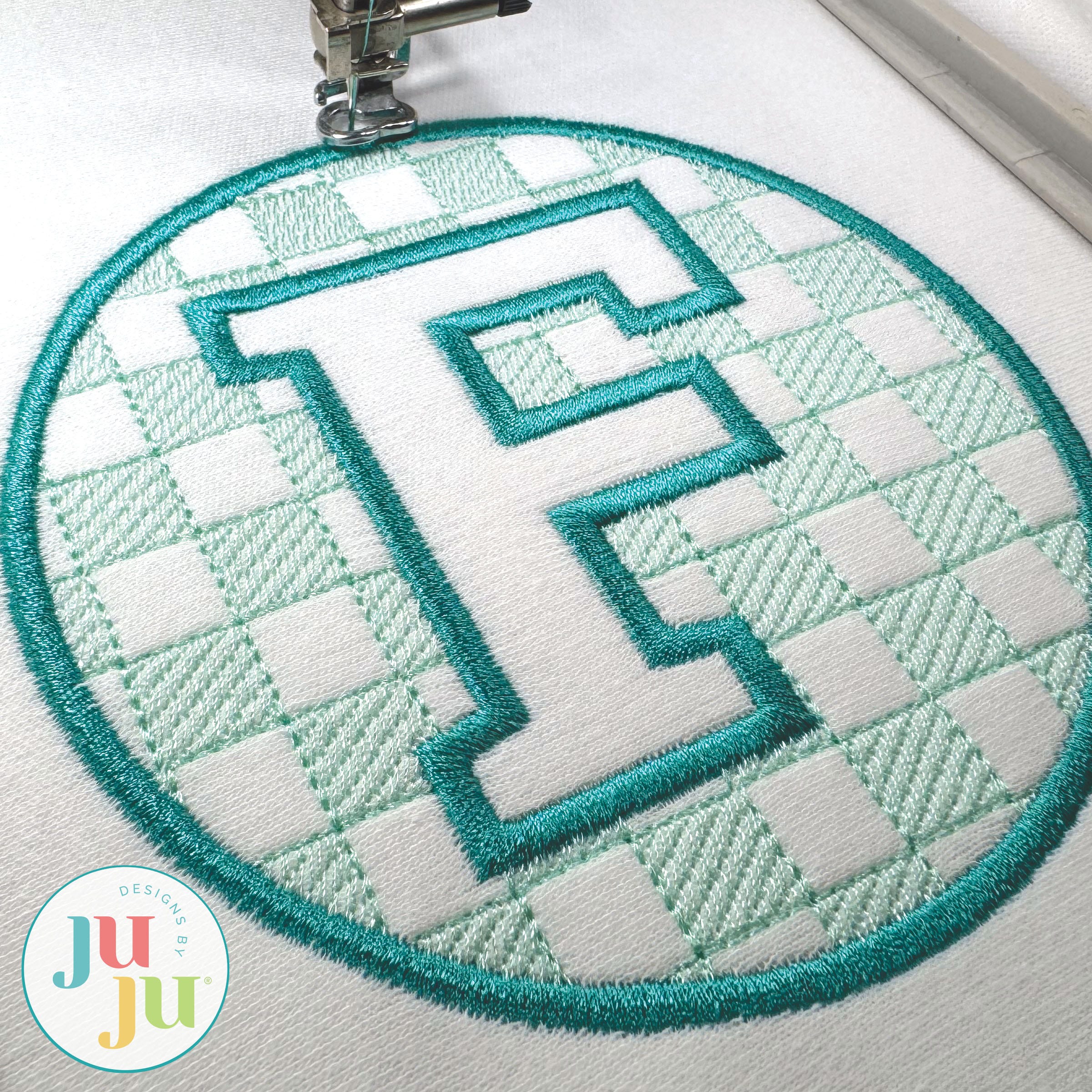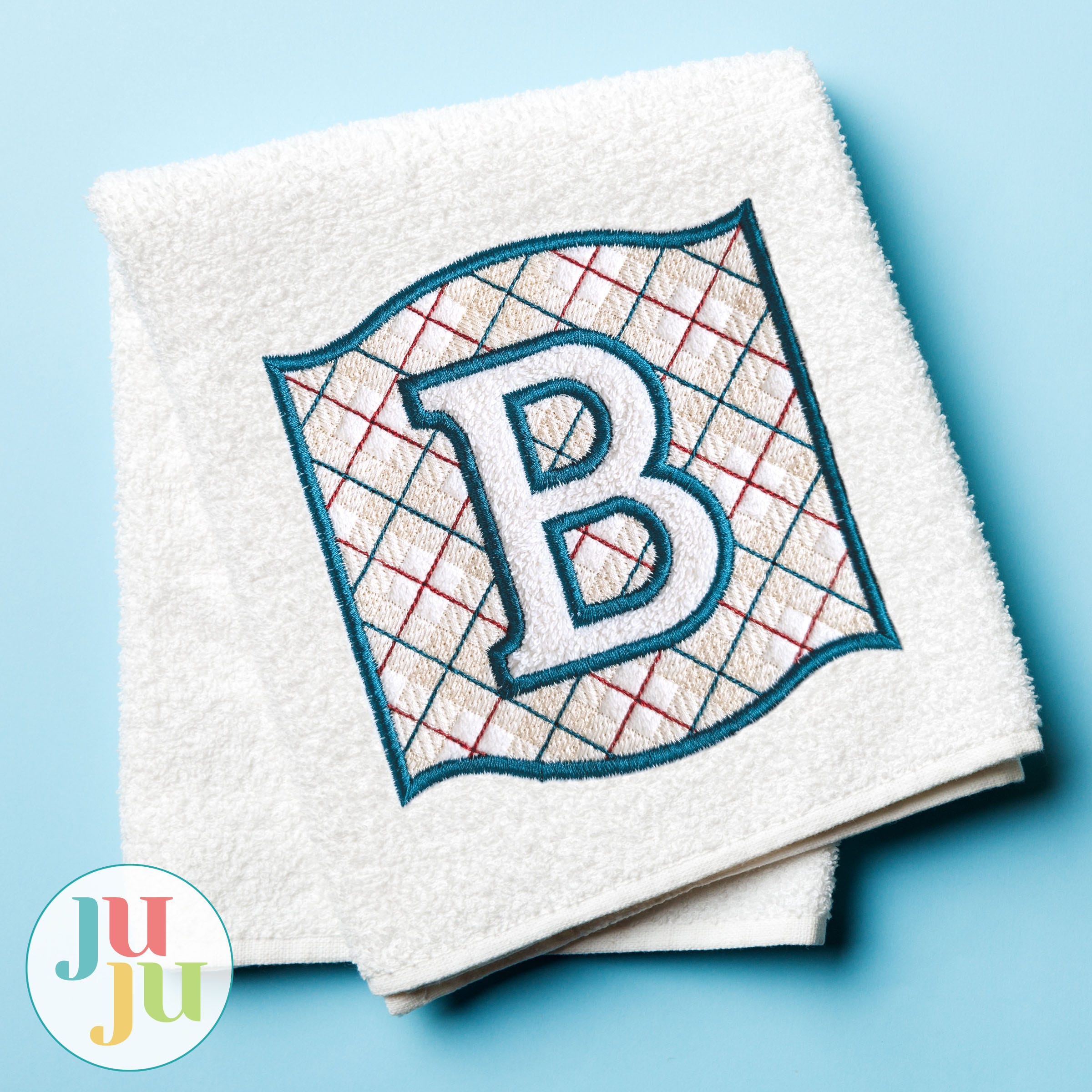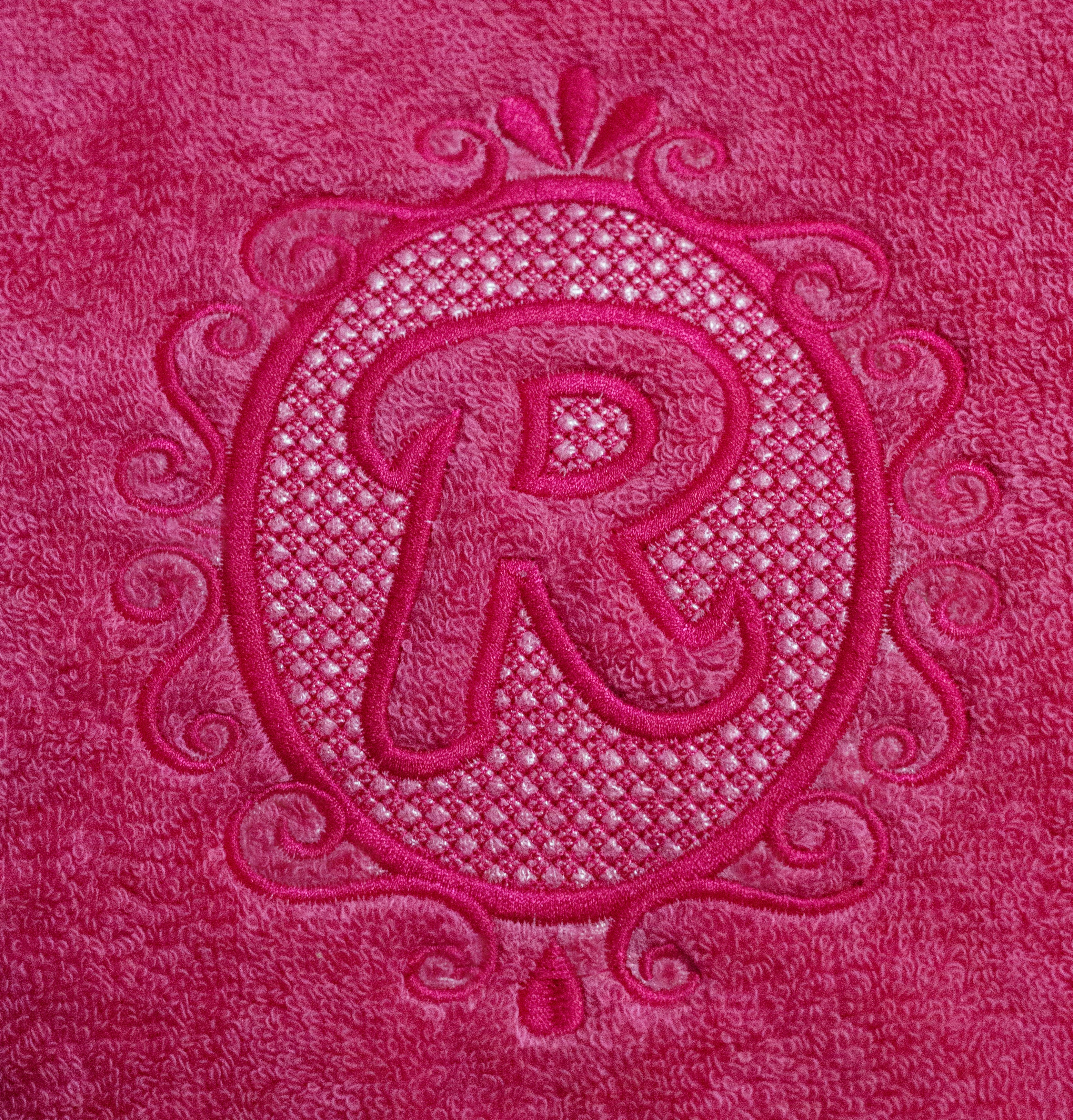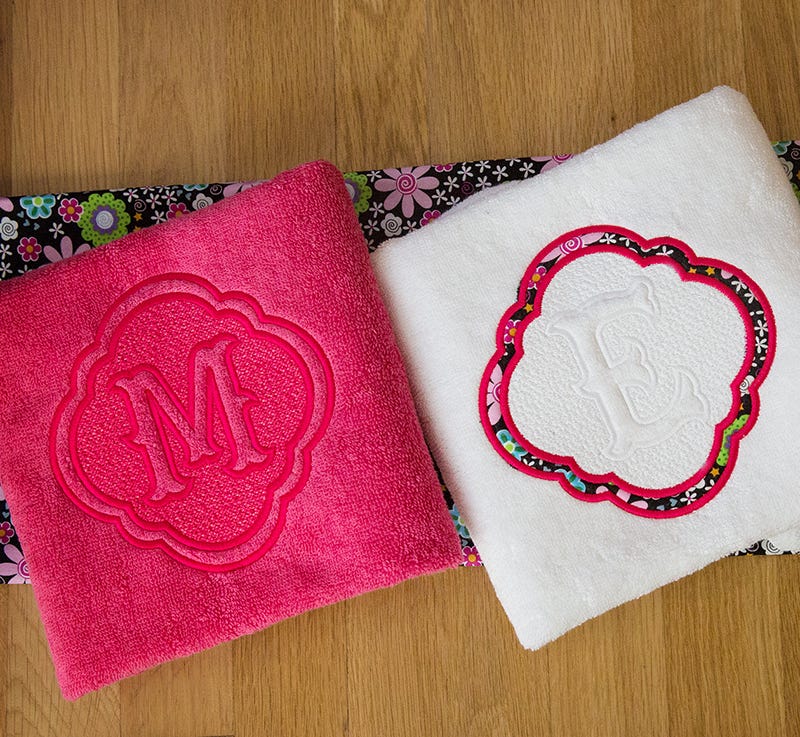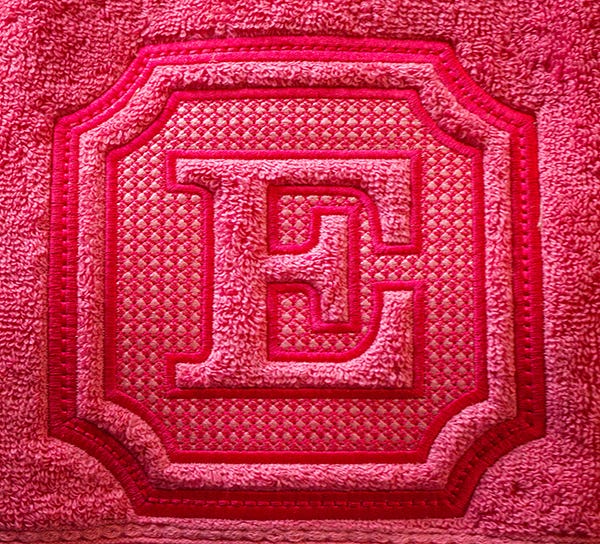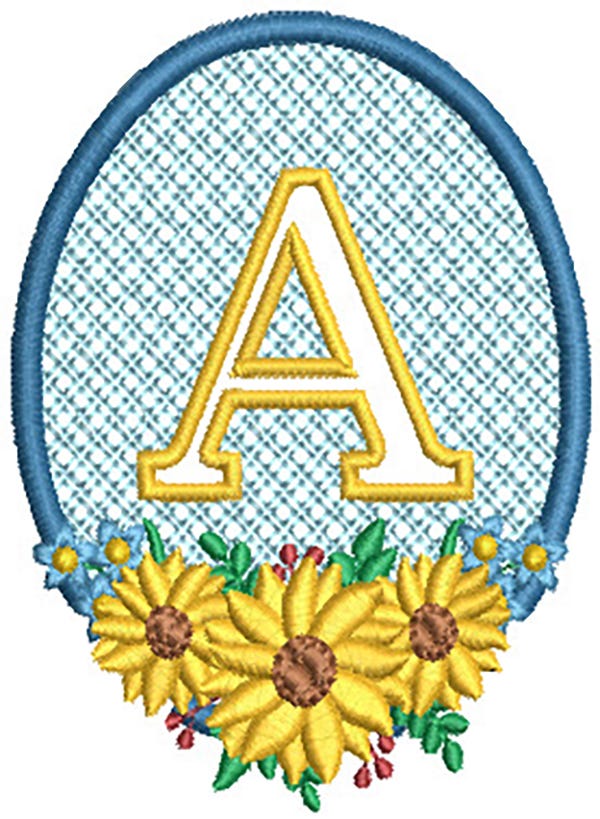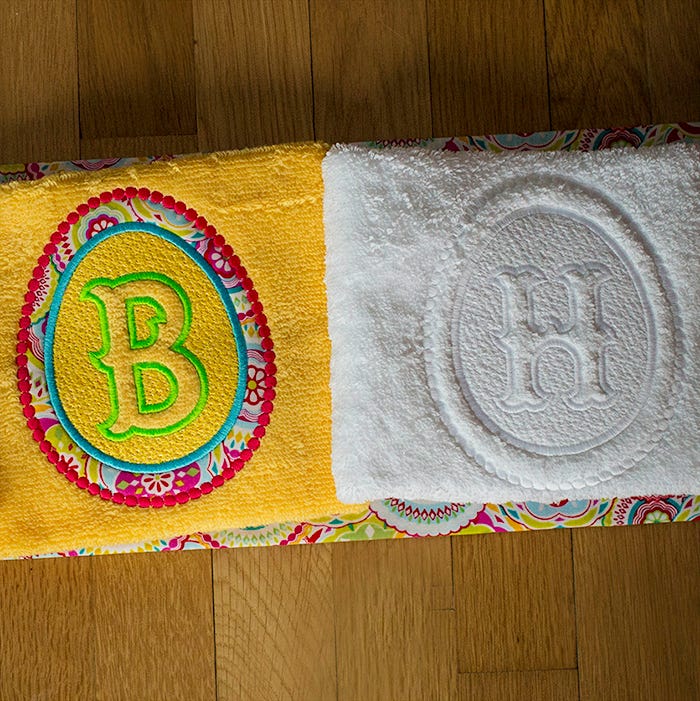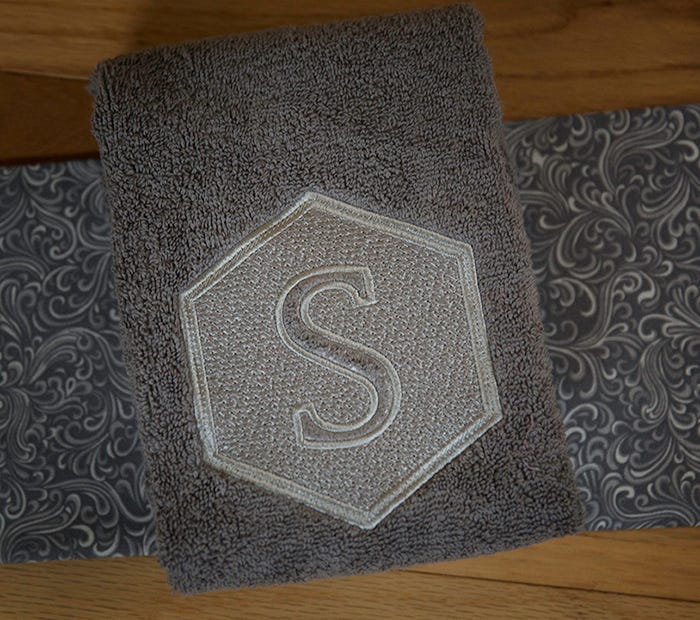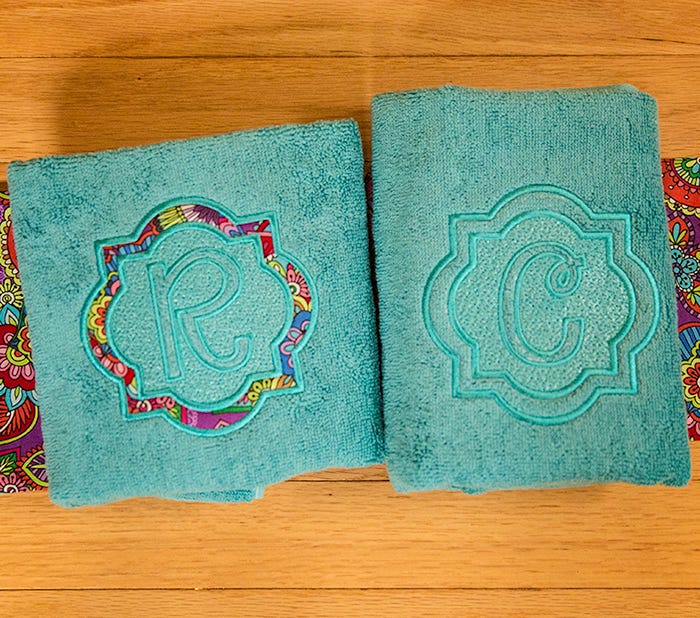
Embossed monograms are the ones people touch before they compliment. Instead of coloring a letter in, the stitching flattens the nap of a plush fabric around and inside the monogram, so the letter emerges as texture: raised, tonal, and quietly luxurious. Run all the stitch stops in one thread color matched to the towel and the effect is pure emboss; the light does the work, not the thread.
That makes these designs the specialists for towels, robes, blankets, and anything with pile, where a classic satin monogram can look loud and an embossed one looks bespoke. Weddings, anniversaries, and housewarming gifts are the natural occasions, which is why hotel-style towel sets keep this collection busy.
Two practical notes for best results. Use a tearaway stabilizer behind the fabric plus a thin water-soluble topping over it, so the stitches sit crisply on top of the pile instead of sinking in. And choose the towel before the thread: the closer the color match, the stronger the embossed illusion.
Embossed monogram embroidery designs create a raised, three-dimensional effect on plush materials with loft, adding a sophisticated and elegant touch to your projects.
These designs are perfect for personalizing towels, blankets, robes and other plush fabric items, making them ideal for gifts and home décor.